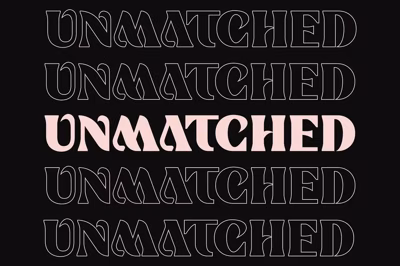
Libertad Free Download
Libertad Font Free Download
Libertad Font is perfect for political campaign materials, human rights organization branding, freedom movement posters, social justice publications, historical documentary titles, civil rights museum exhibits, protest signage, revolutionary art projects, liberty-themed merchandise, and independence celebration designs.
What makes Libertad Font so exciting is its powerful embodiment of freedom and liberation through bold, assertive letterforms that command attention and respect. The font's design philosophy centers on breaking boundaries and expressing unrestricted creativity, featuring strong, confident strokes that symbolize strength, determination, and the human spirit's quest for liberty. Each character stands tall with unwavering dignity, creating a visual language that instantly communicates courage, resilience, and the timeless struggle for freedom. This remarkable typeface transforms ordinary messages into powerful declarations that inspire action and evoke deep emotional responses from viewers.
The Libertad Font family includes comprehensive variations: Regular, Bold, Light, Medium, Condensed, Extended, Italic, Outline, and Stencil styles. Each variation maintains the font's characteristic strength and clarity while offering different levels of visual impact for various revolutionary and inspirational design applications.
When seeking a typeface that captures the essence of human dignity and freedom, Libertad Font Free Download stands as an exceptional choice that combines historical significance with contemporary design excellence. This powerful font elevates any message related to justice, equality, and human rights to new levels of visual impact and emotional resonance.
The meticulously crafted letterforms of Libertad Font demonstrate exceptional readability across all media formats, from intimate pamphlets to massive billboard displays. Its robust construction ensures clarity and impact whether used in digital presentations, print materials, or large-scale environmental graphics where visibility and immediate recognition are crucial.
Professional designers working on advocacy campaigns, educational institutions, and social change initiatives particularly value the font's ability to convey authority, trustworthiness, and moral conviction. The typeface works exceptionally well for projects requiring gravitas, historical reference, and emotional connection with audiences who value justice and equality.
The extensive OpenType features of Libertad Font include contextual alternates, multilingual support, and specialized character sets that enable designers to create sophisticated typography while maintaining the font's powerful symbolic meaning throughout all design elements and cultural contexts.